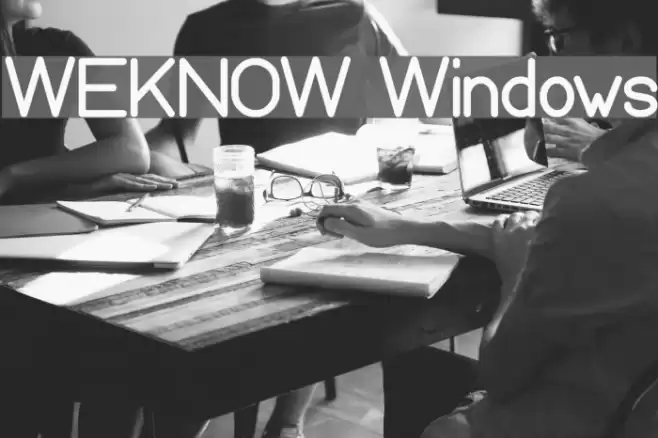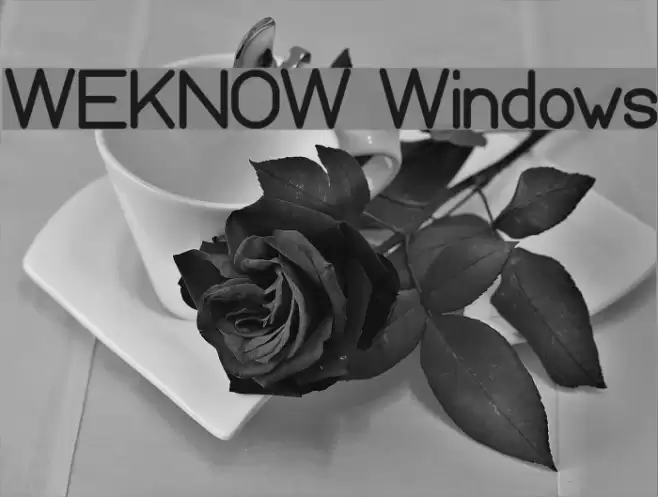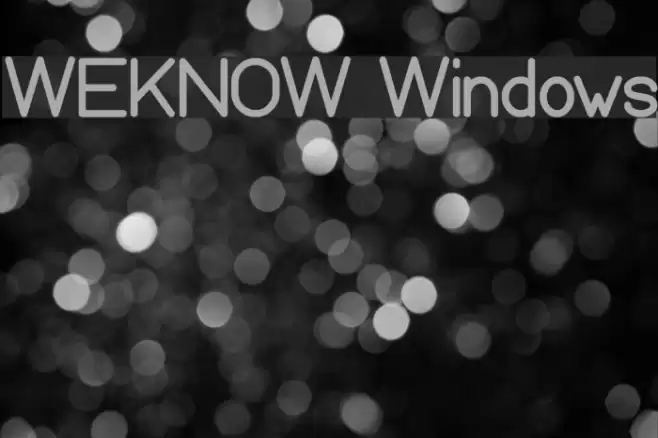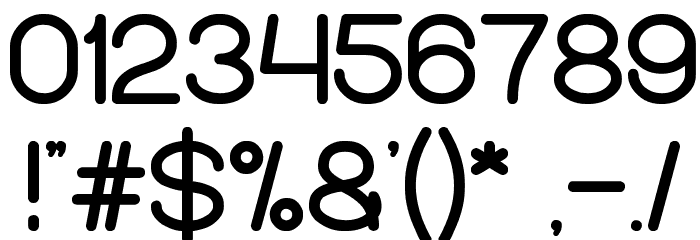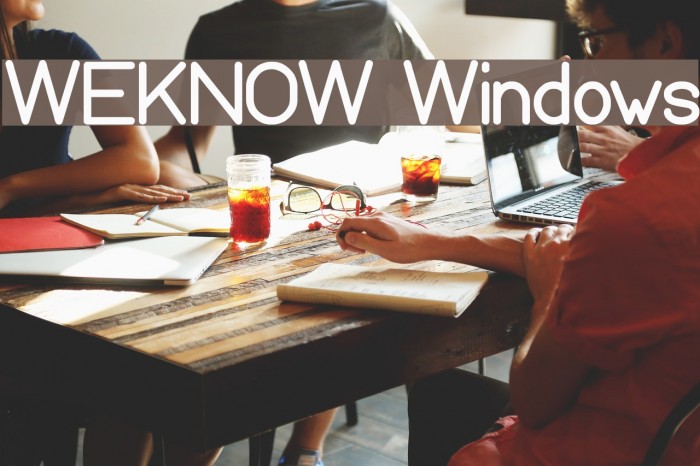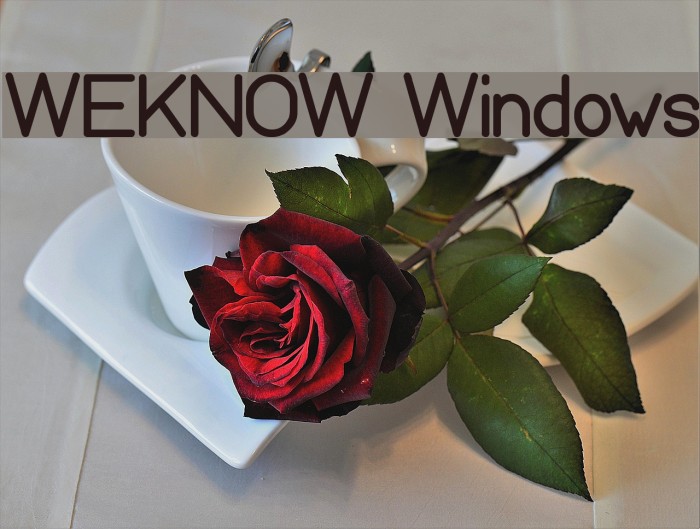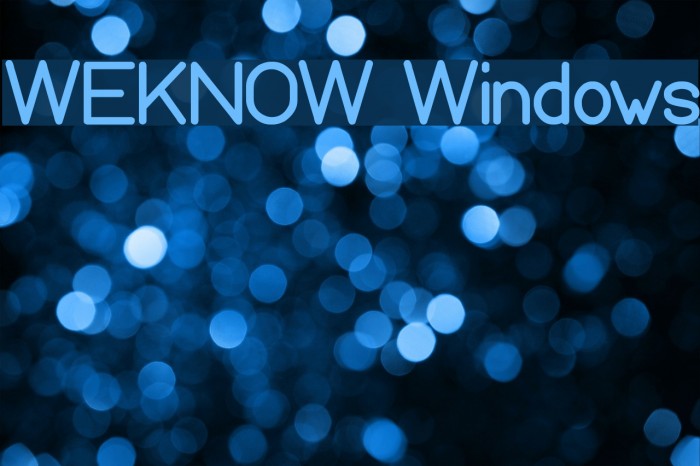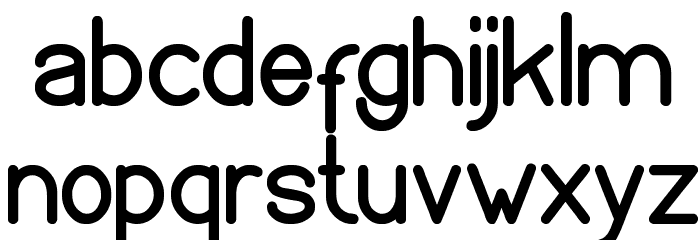
WEKNOW Windows Font
WEKNOW Windows Description
This font features a clean and modern sans-serif style with rounded edges, giving it a friendly and approachable appearance. The characters are evenly spaced, contributing to its readability. The uniform stroke width across all characters provides a consistent and harmonious look. The uppercase and lowercase letters maintain a balanced proportion, while the numerals and special characters are designed to complement the overall aesthetic. This font's simplicity and clarity make it versatile for various design applications.
A modern, rounded sans-serif font with uniform stroke width and balanced proportions from Uncategorized fonts.
- Proposed Projects: Ideal for branding, web design, user interfaces, and educational materials due to its clarity and modern appeal.